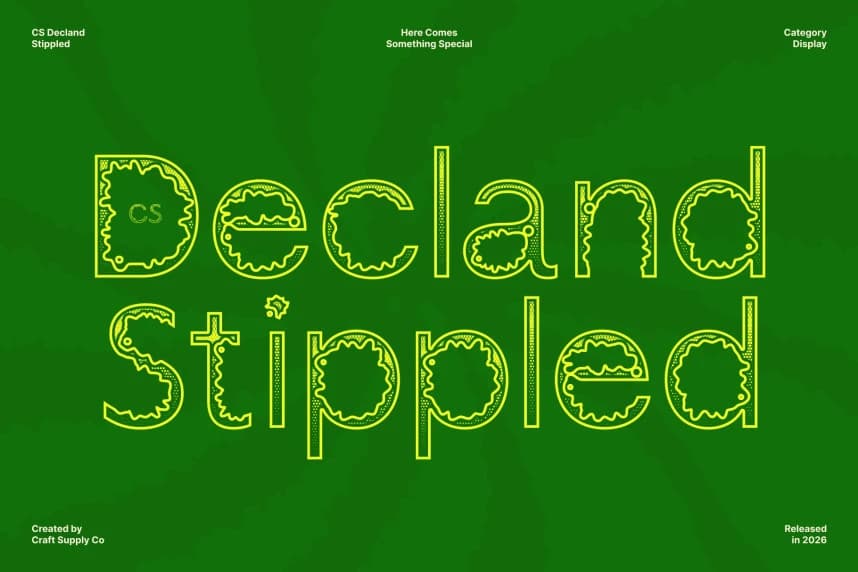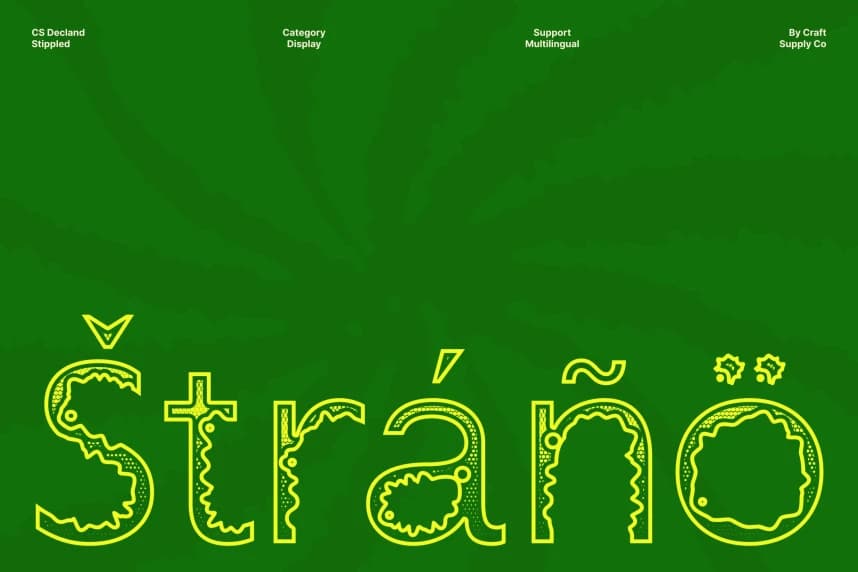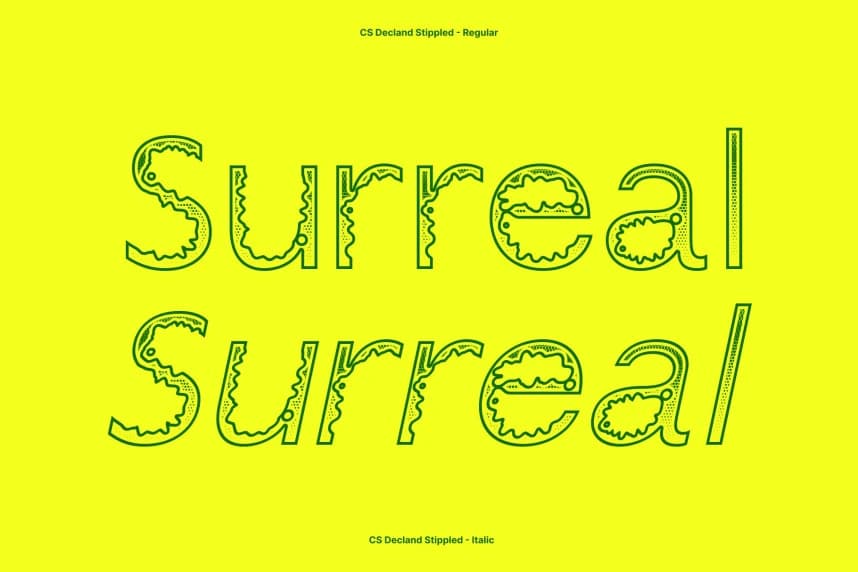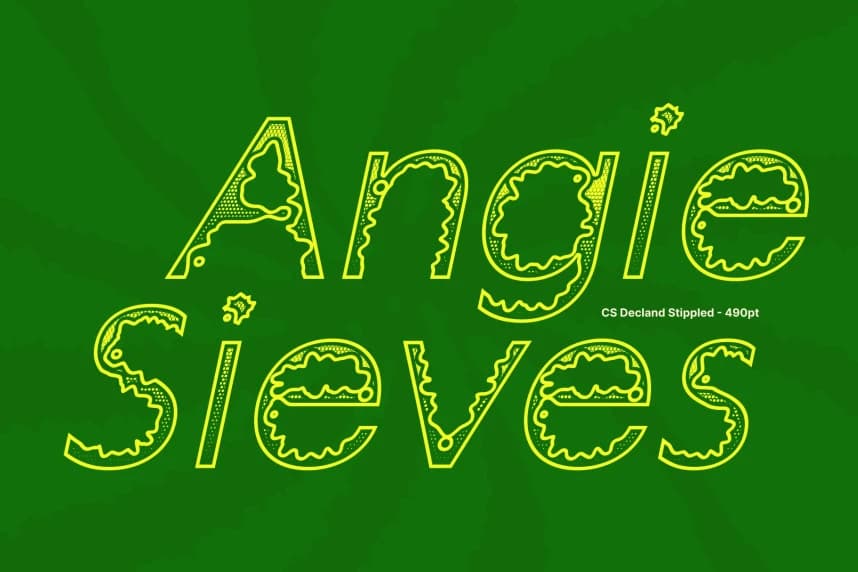
CS Decland Stippled Font
CS Decland Stippled Font – Psychedelic Font with Vibrant Textured Energy Bold Psychedelic Design with Stippled Character. This is a striking psychedelic display font defined by curved, swirling, and dynamically distorted letterforms.